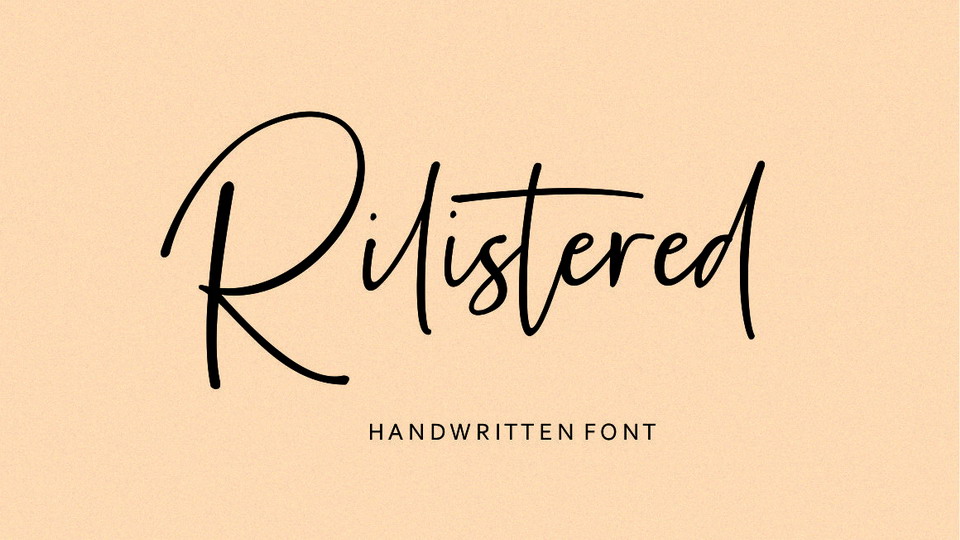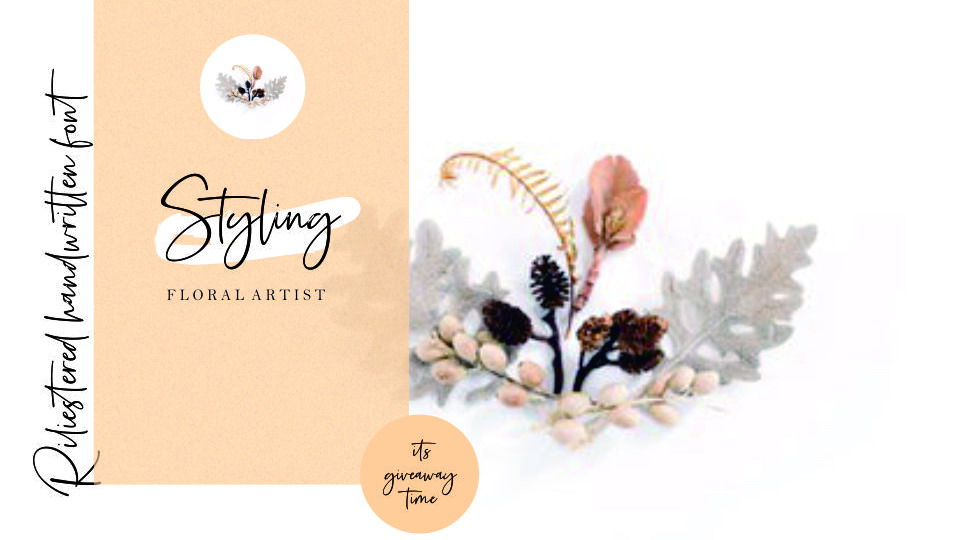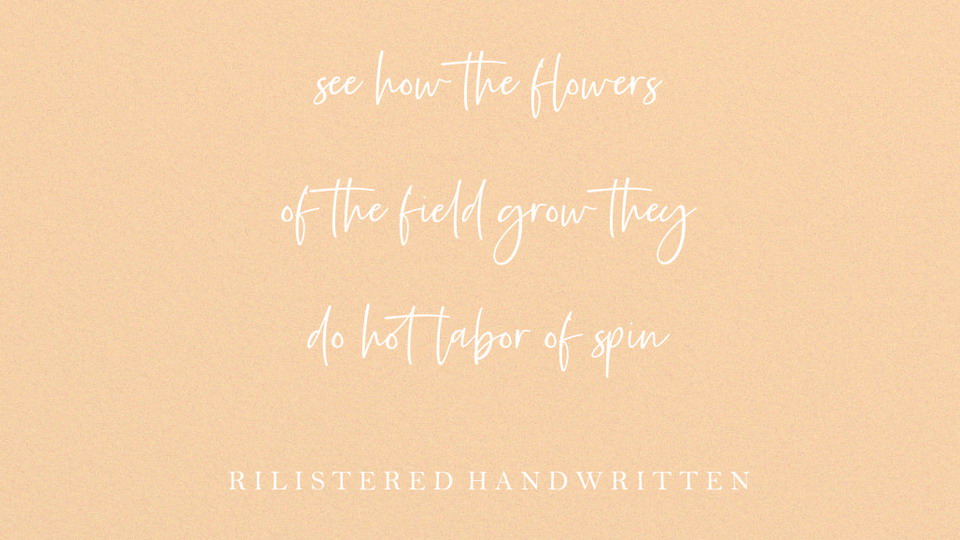
Rilistered is a stylish signature style handwritten font. It comes with a complete glyph set with ligatures and multilingual support.
Rilistered font is perfect for personal branding and logo, wedding designs, social media posts, advertisements, photography, watermark, special event, magazine,web design,etc